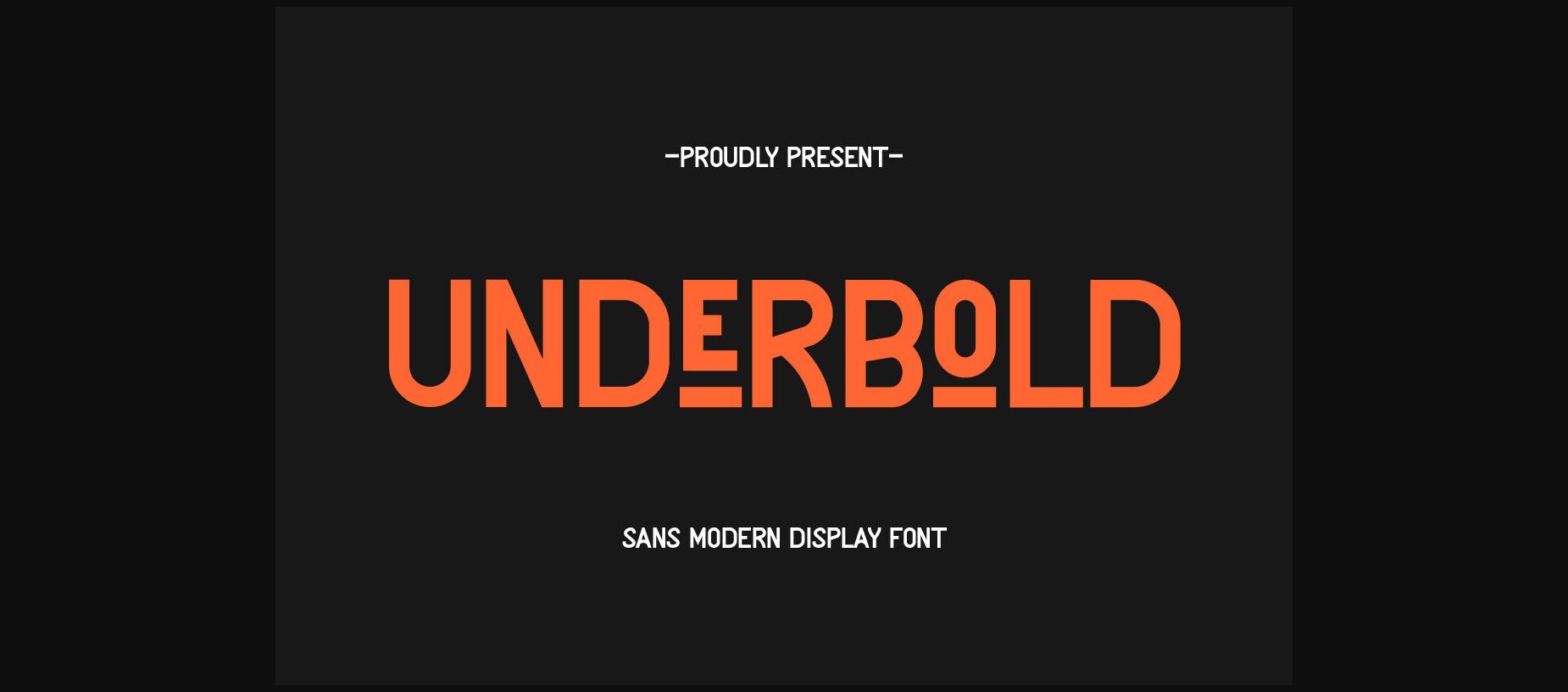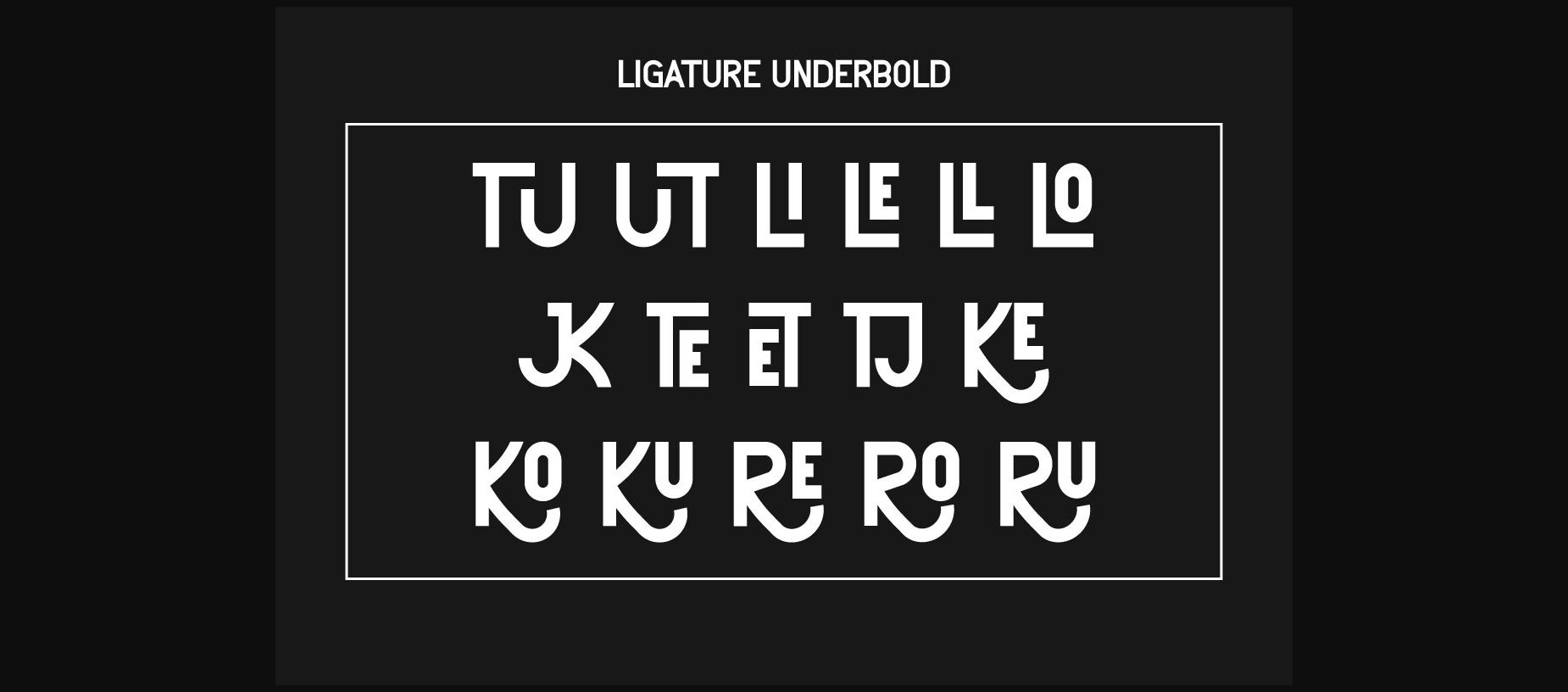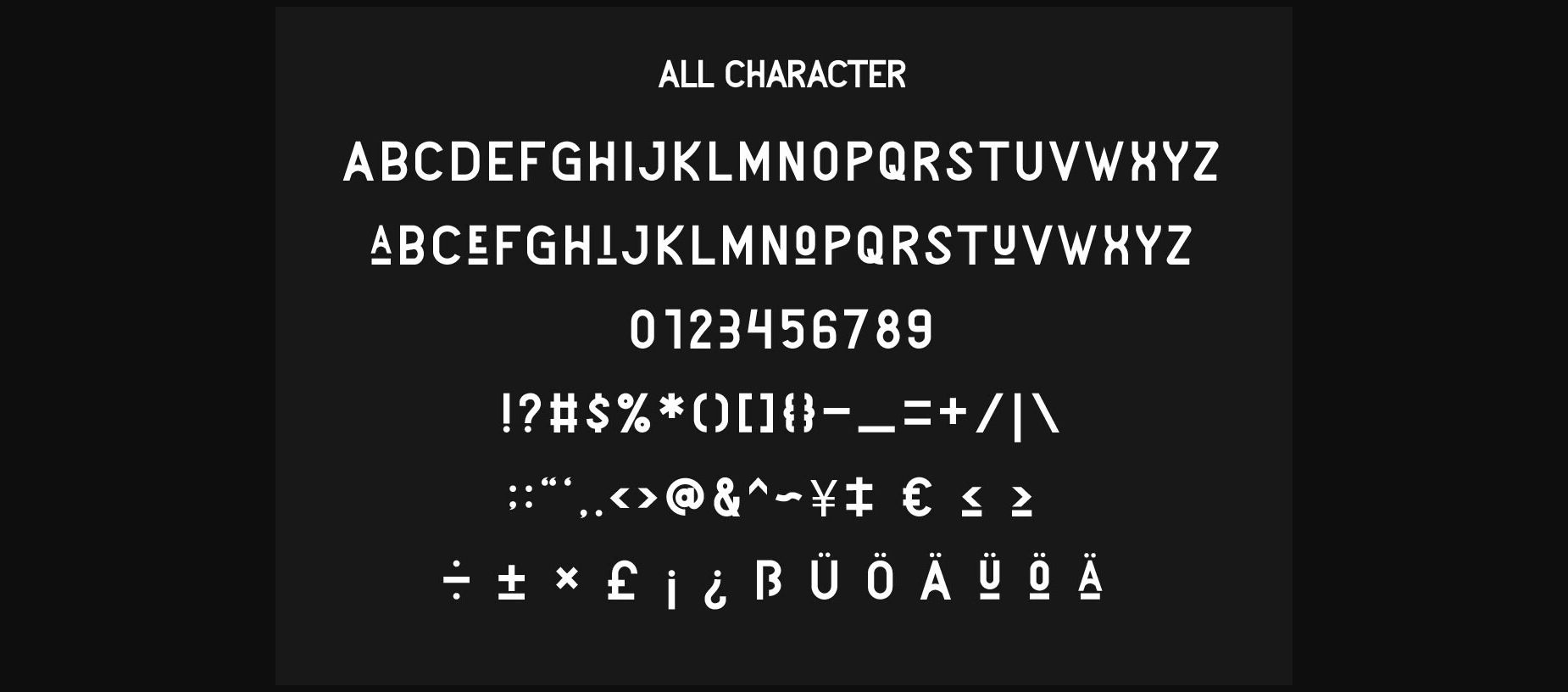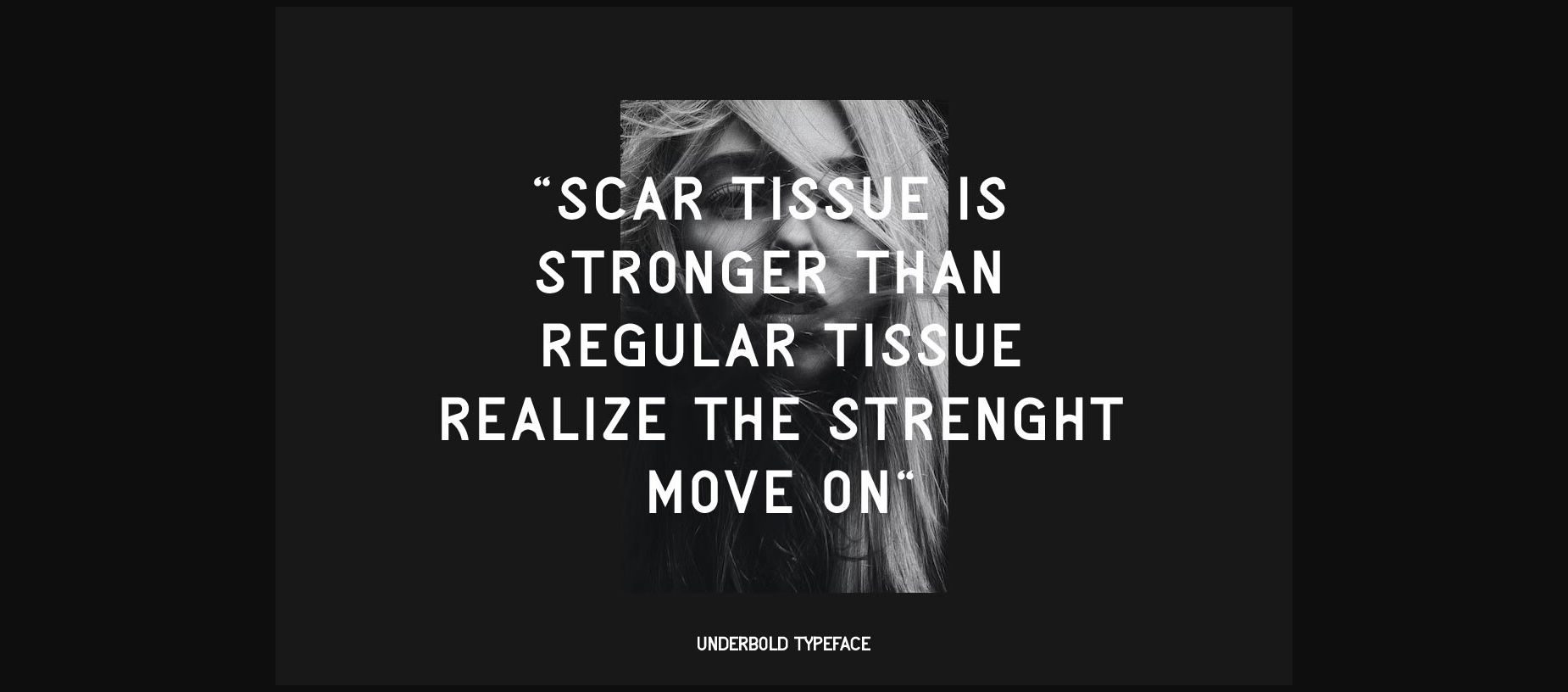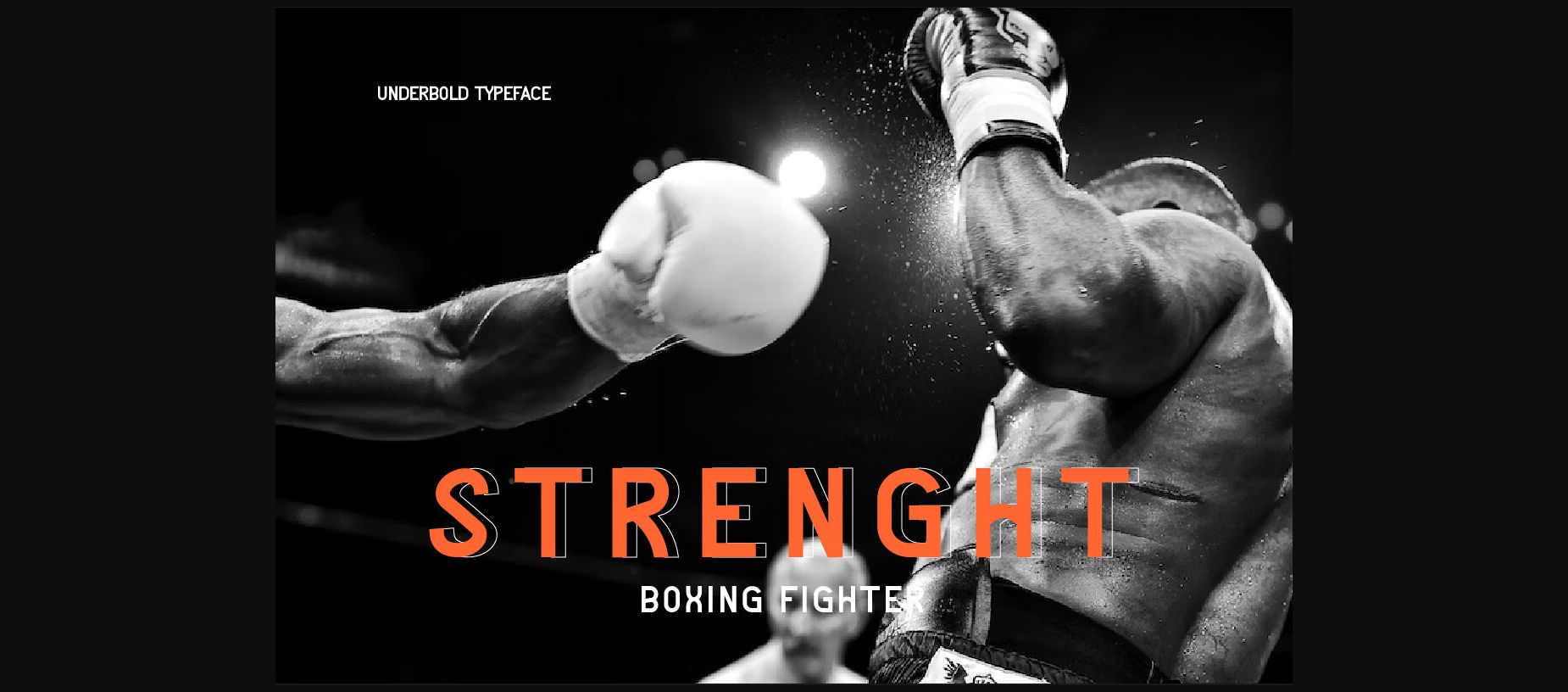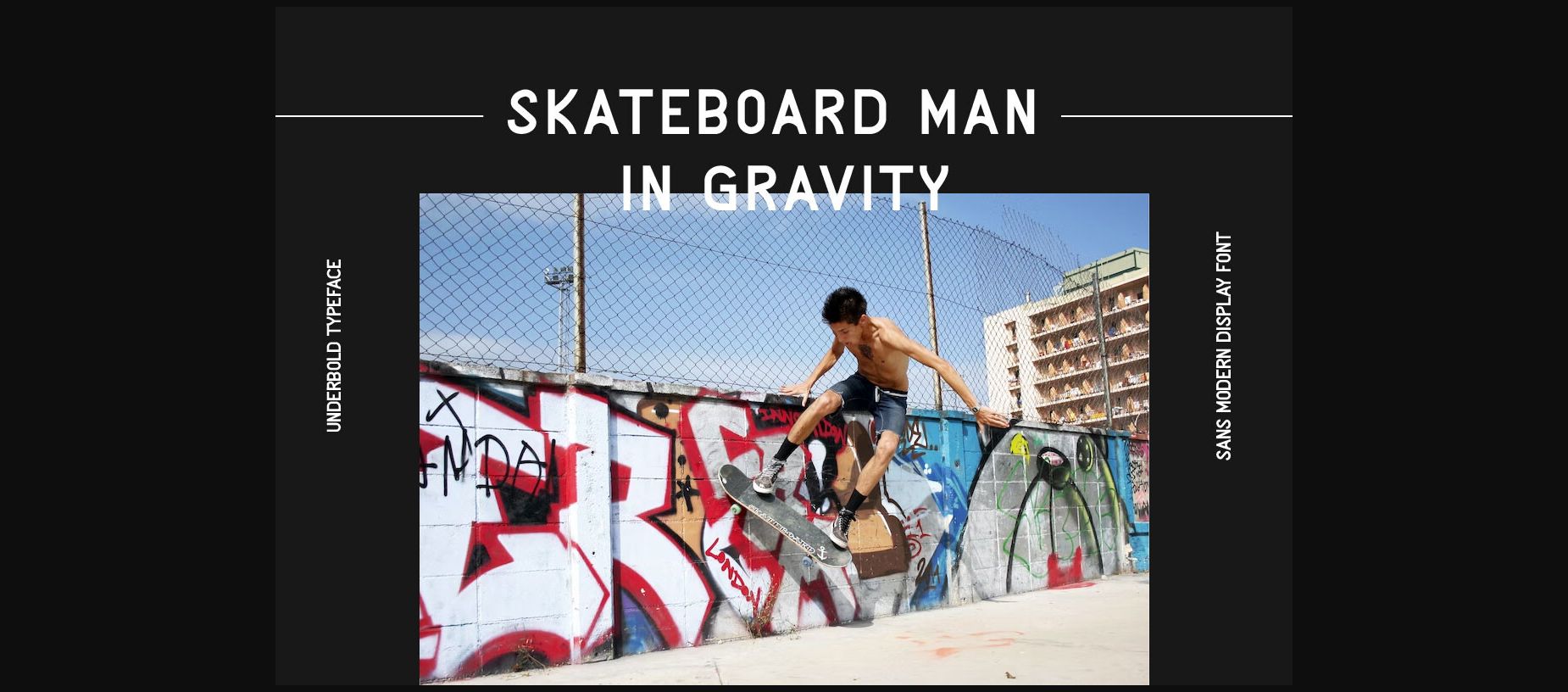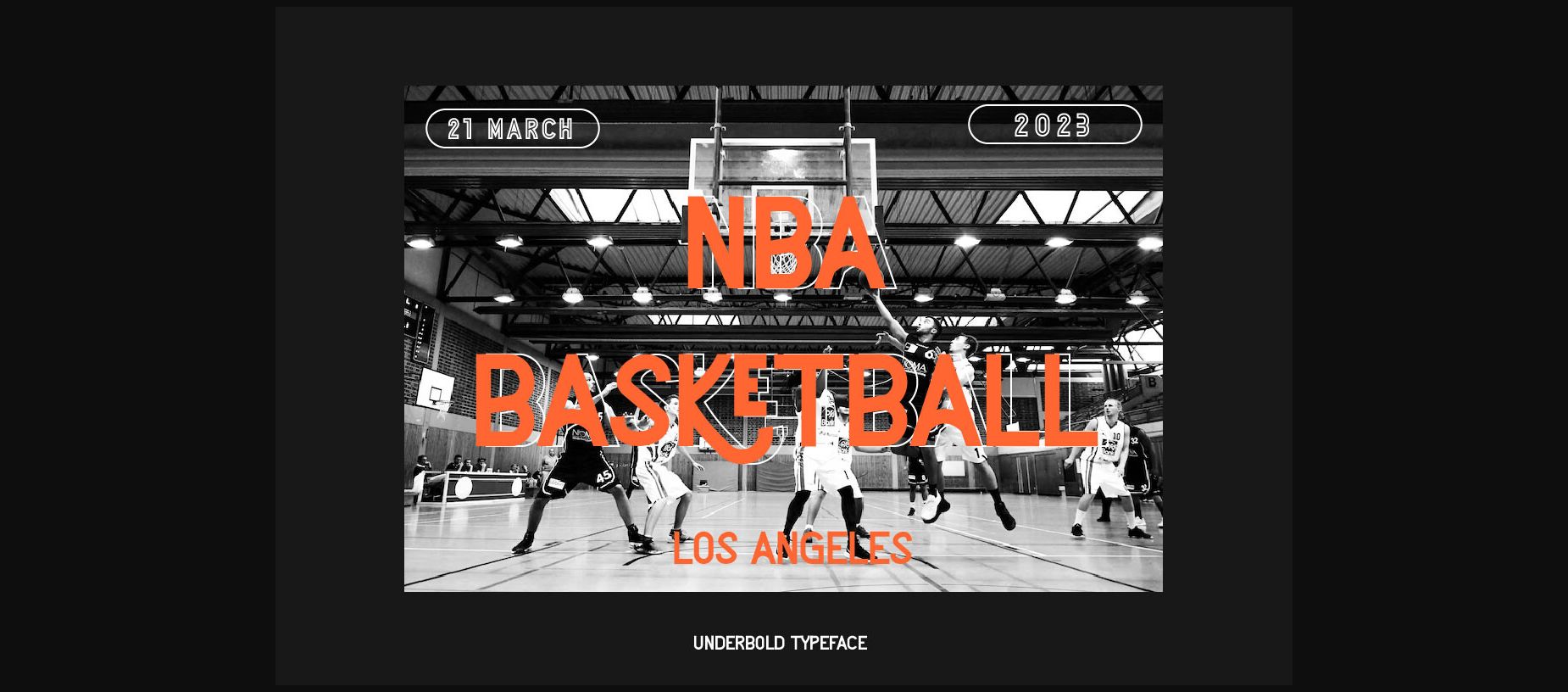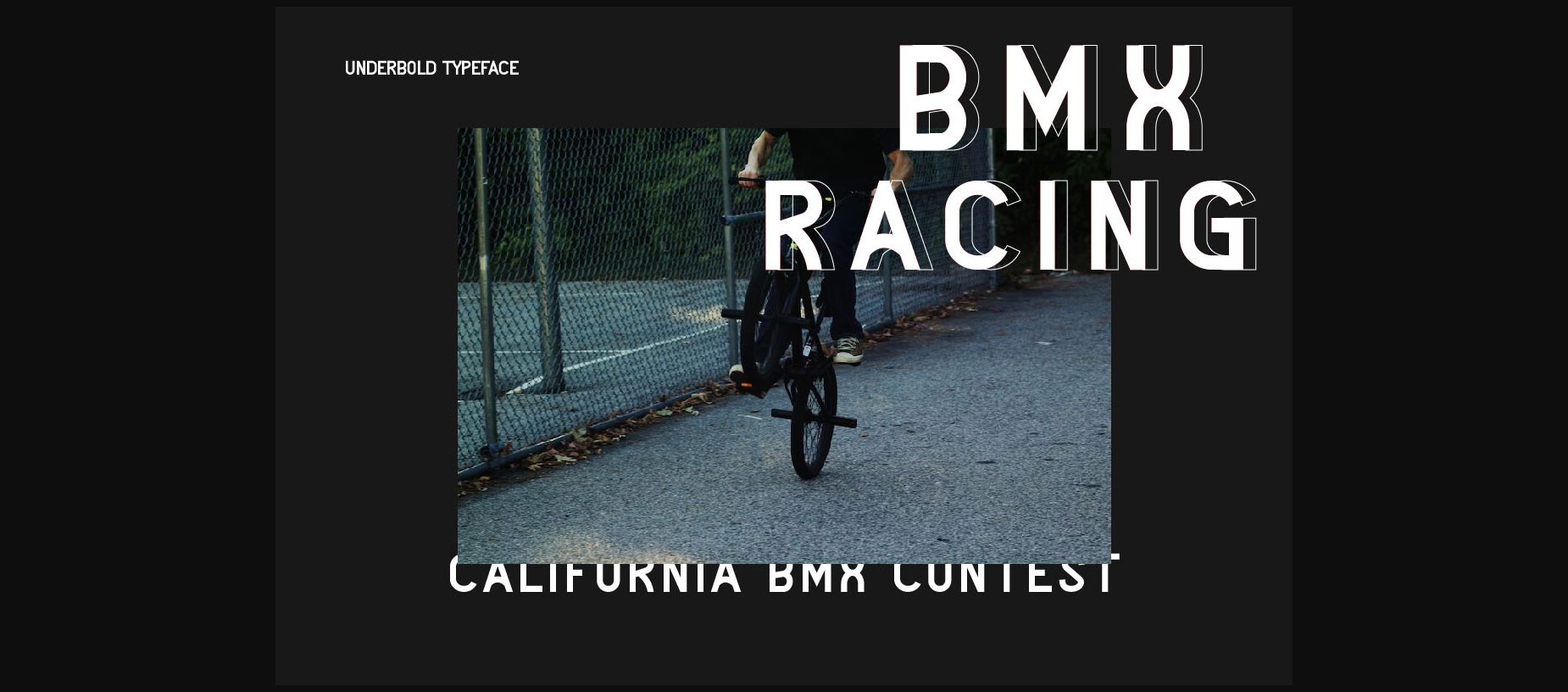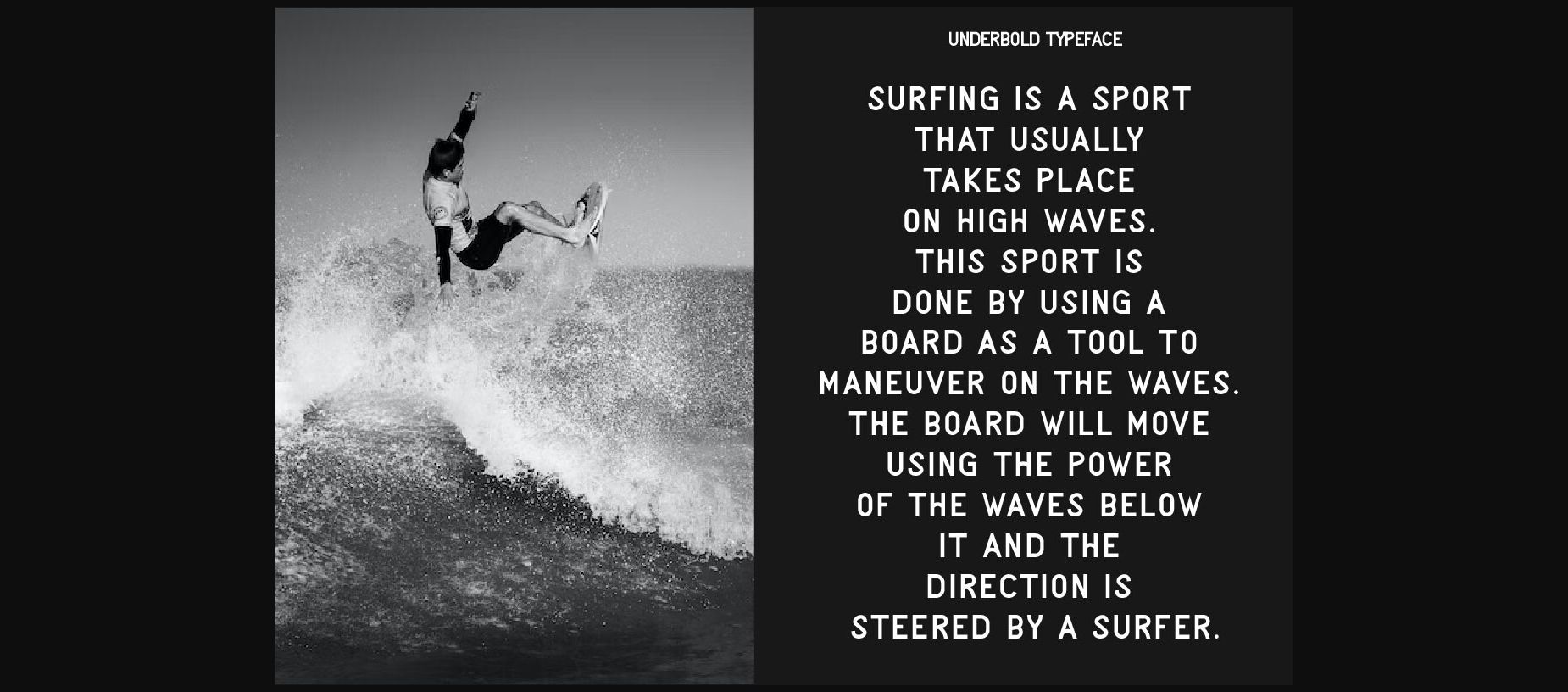
Underbold Font
About Underbold Font
Underbold is a sans serif font with a modern style based on a minimalist monoline shape that is touched in a modern and elegant style. This font is perfect for a variety of creative needs such as printing, books, titles, headlines, photography, embellishments, branding, logos, and more.